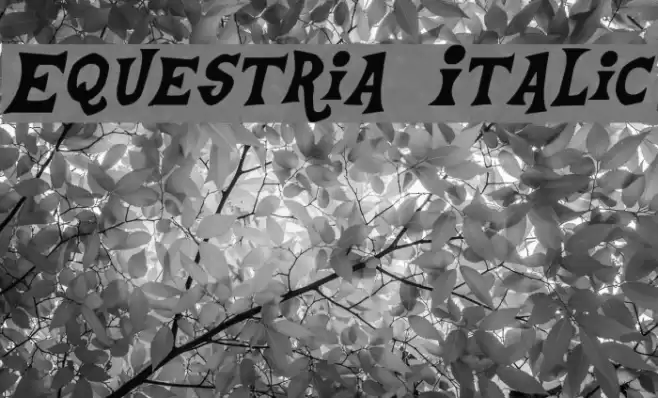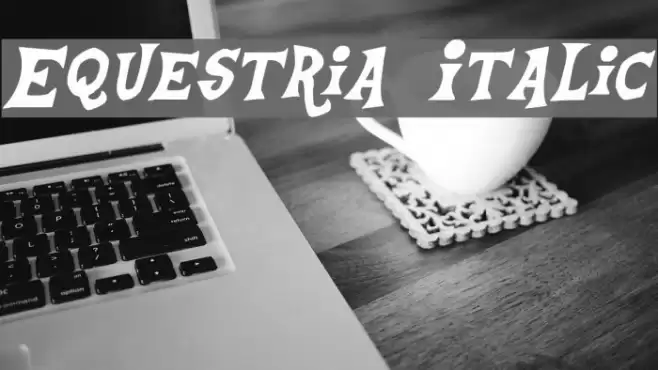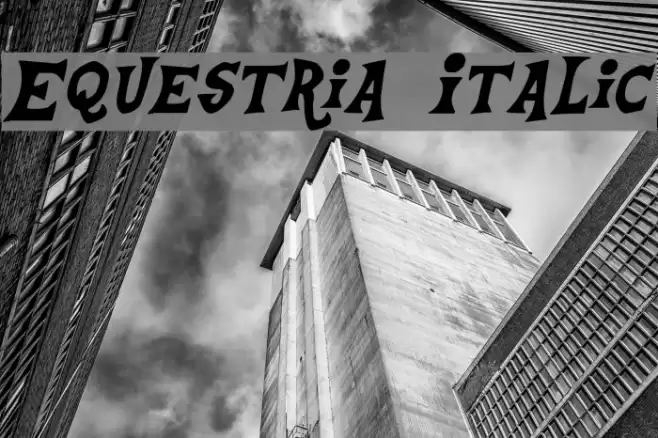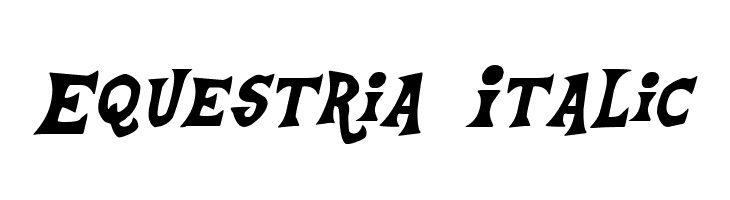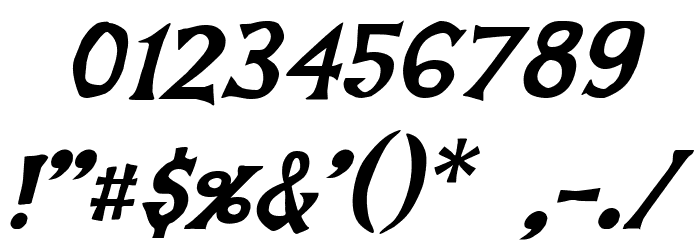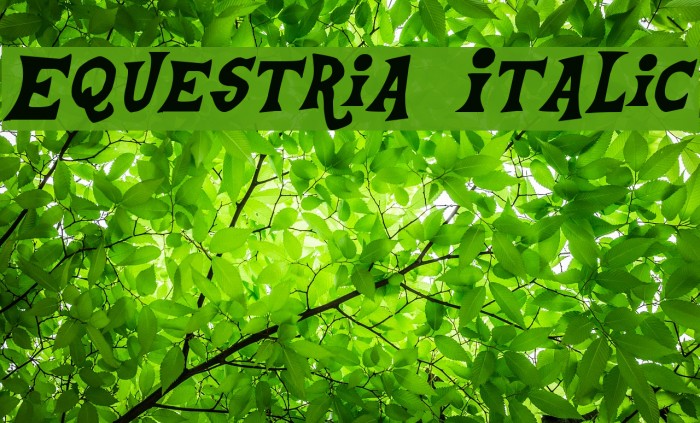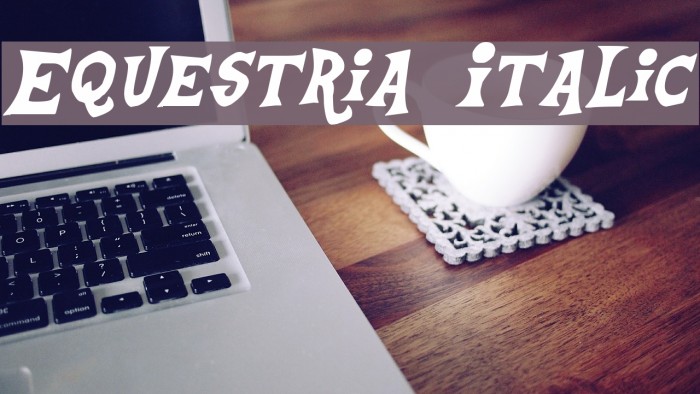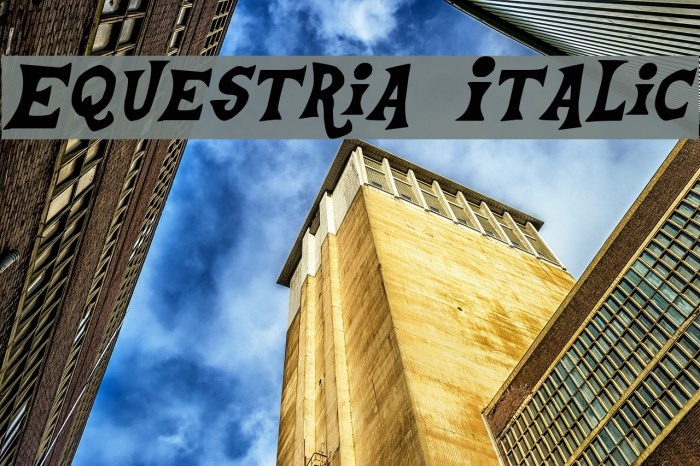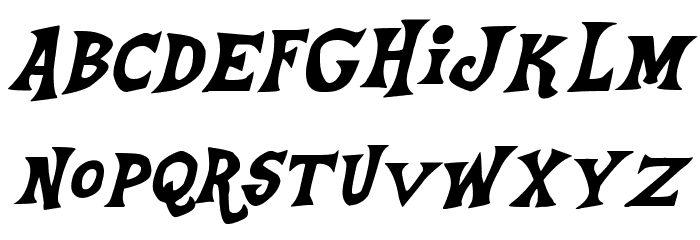
Equestria Italic Font
Equestria Italic Description
This font features a dynamic and energetic style with a distinct italic slant, giving it a sense of motion and flair. The characters are bold and expressive, with sharp edges and varying stroke widths that add to its dramatic appearance. The uppercase letters are particularly striking, with exaggerated serifs and a playful, whimsical quality. The lowercase letters maintain the same lively energy, with unique curves and angles that make each character stand out. The numerals are equally bold, ensuring they are easily readable while maintaining the font's overall aesthetic. Special characters are crafted with the same attention to detail, providing a cohesive look across all glyphs.
A bold, italic font with dynamic strokes and a whimsical, energetic style from Uncategorized fonts.